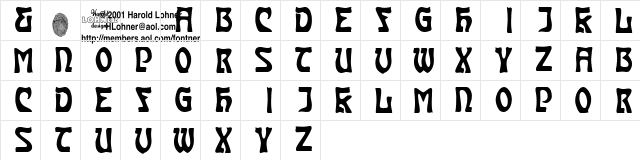
Carmen CapsInside Regular
Design Context for Carmen CapsInside Typeface
Carmen CapsInside is a composed and adaptable typeface that performs quietly and consistently across a wide range of design contexts.